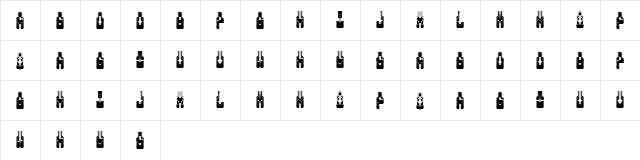
Athens Filled Regular
Design Context for Athens Filled Typeface
Athens Filled is a composed and adaptable typeface that performs quietly and consistently across a wide range of design contexts.